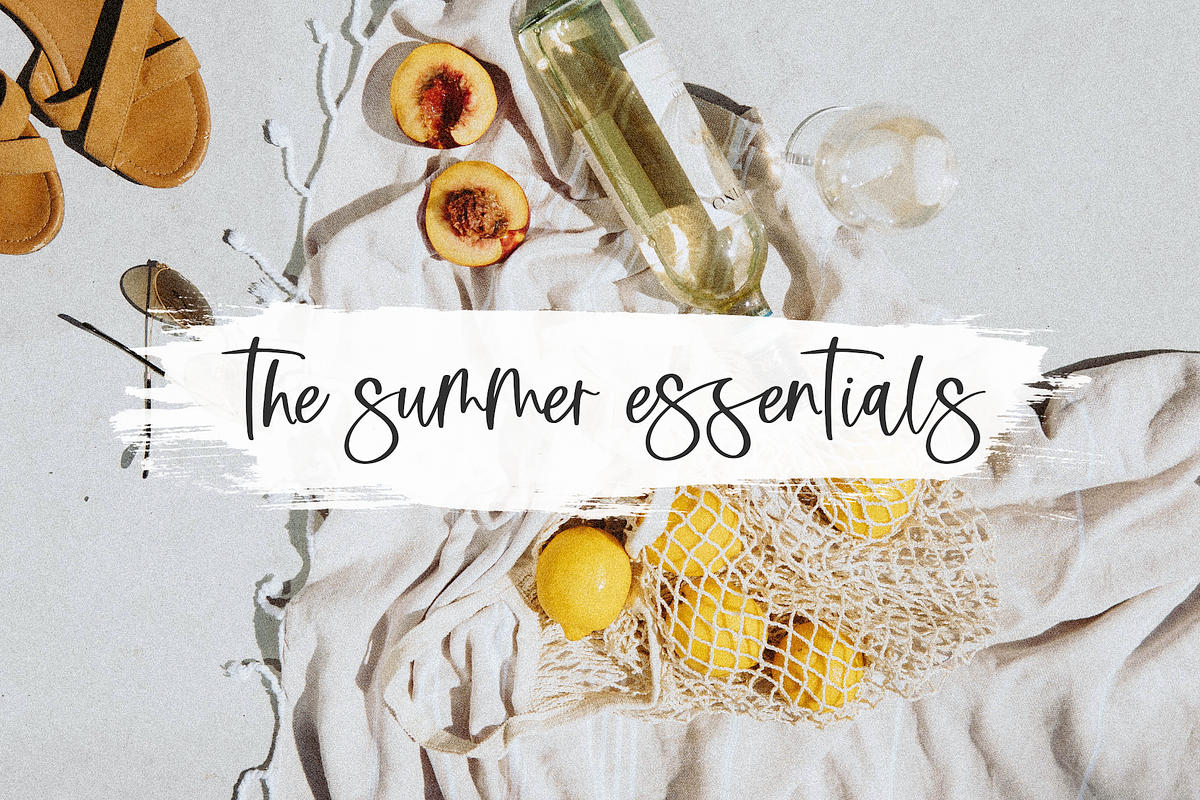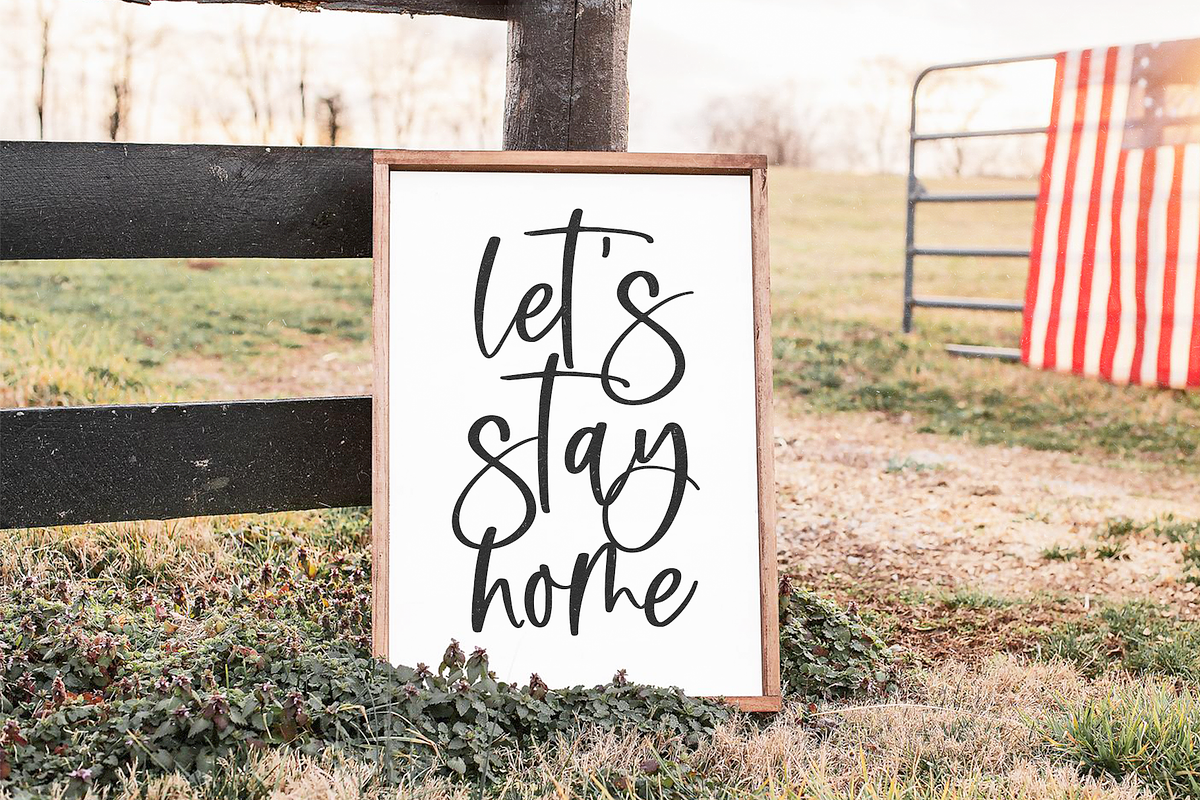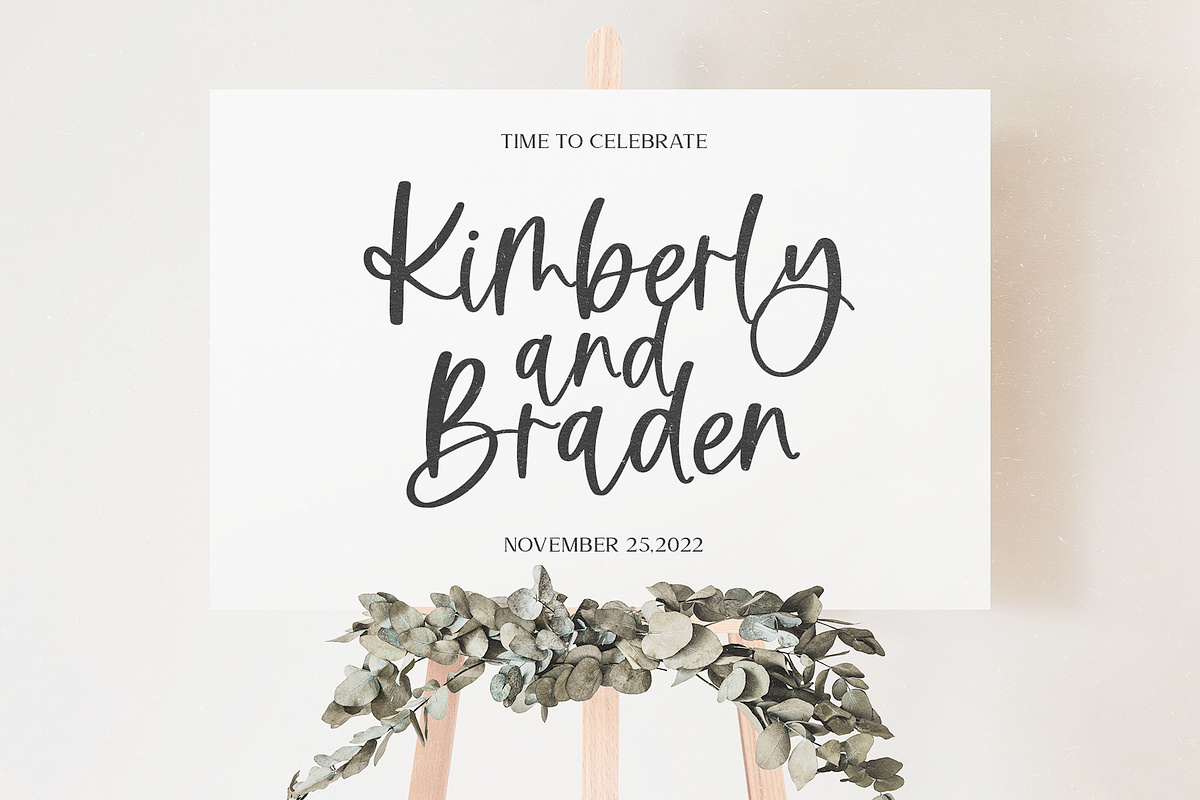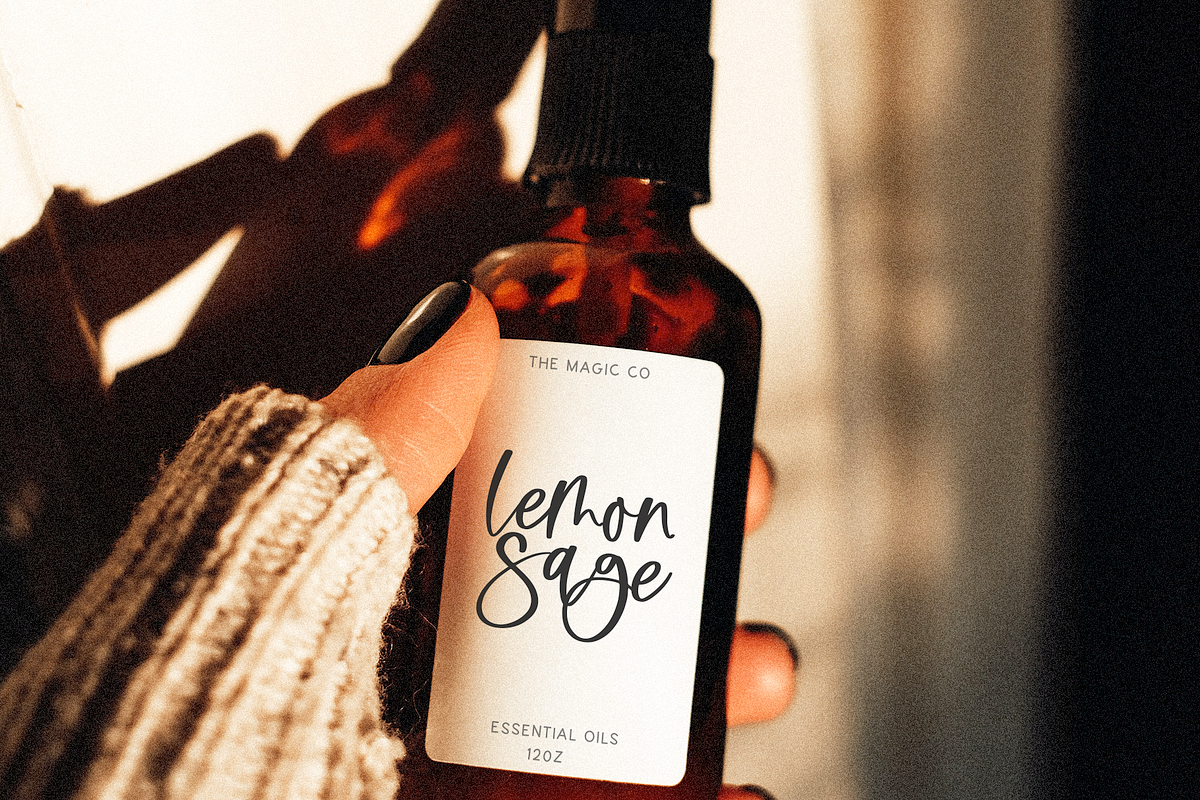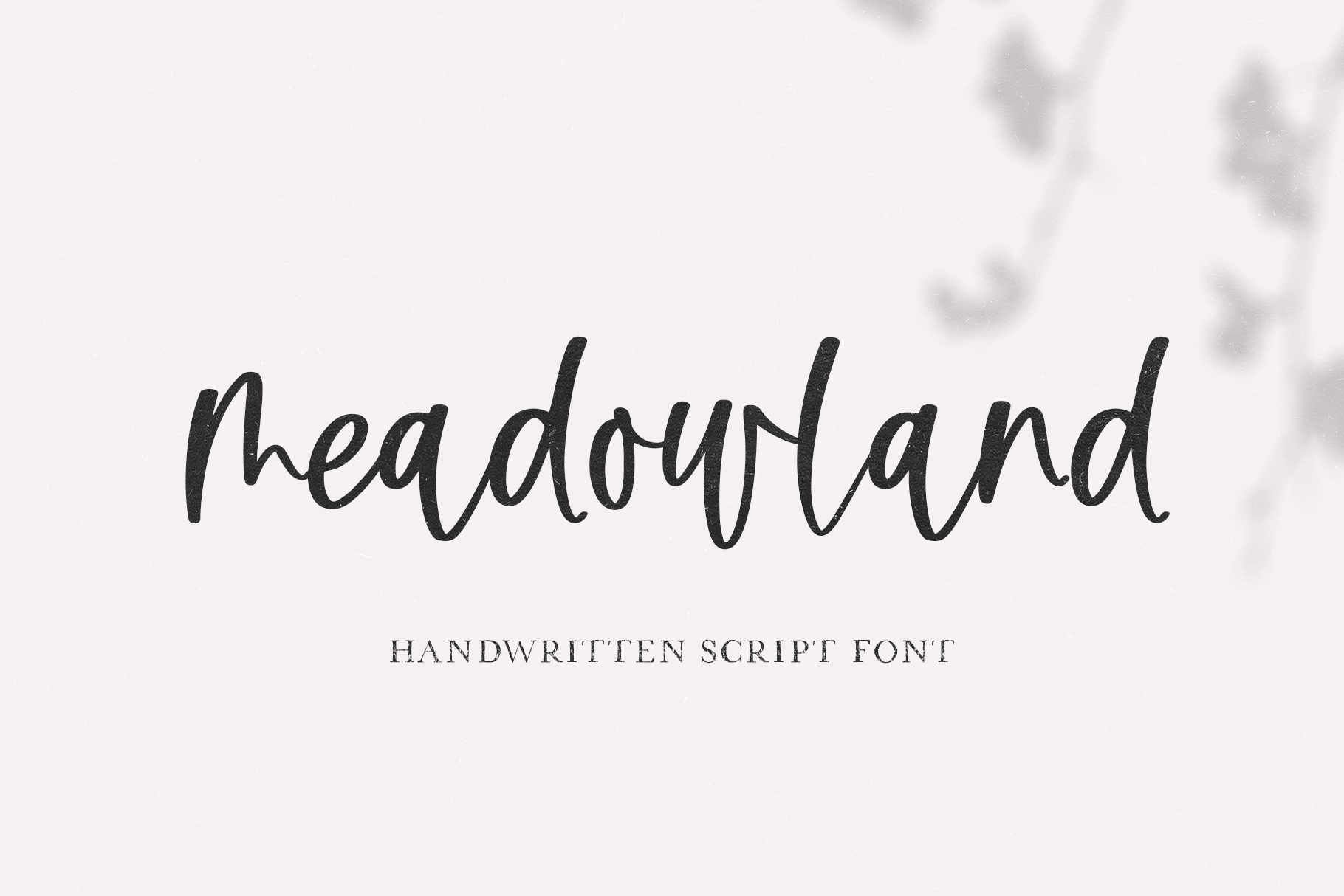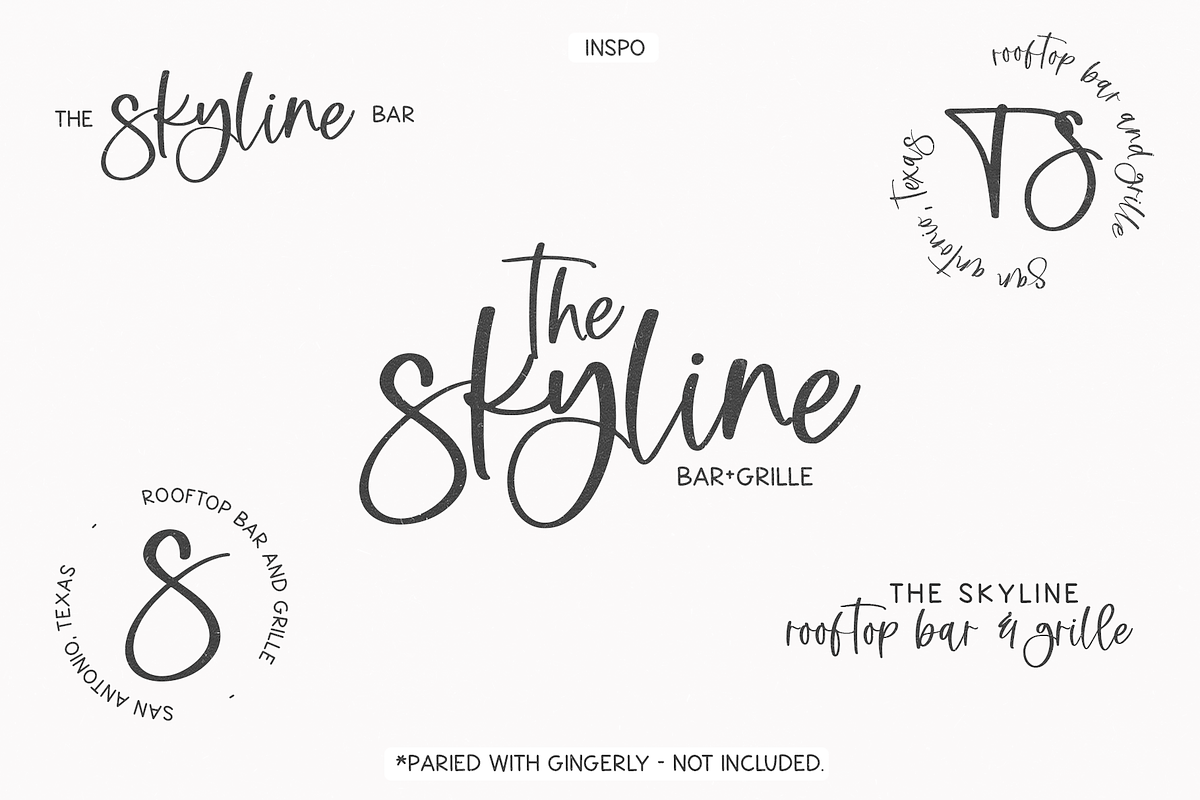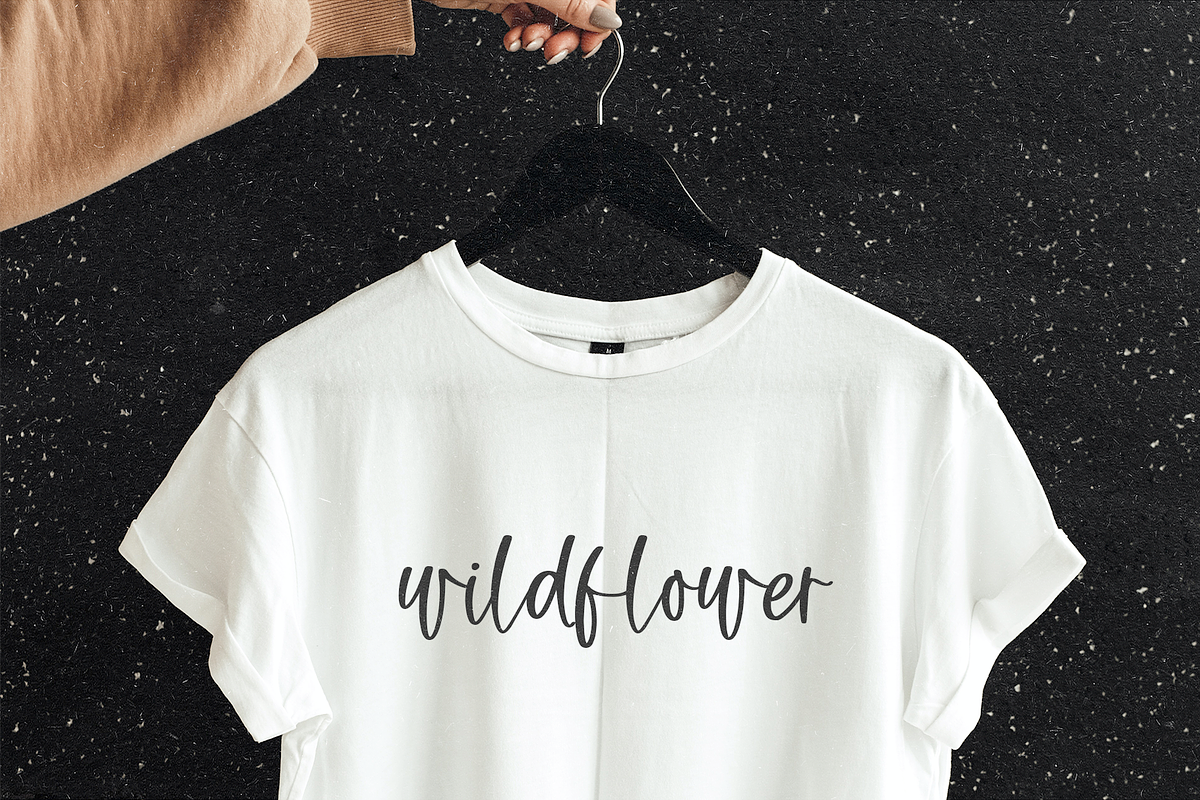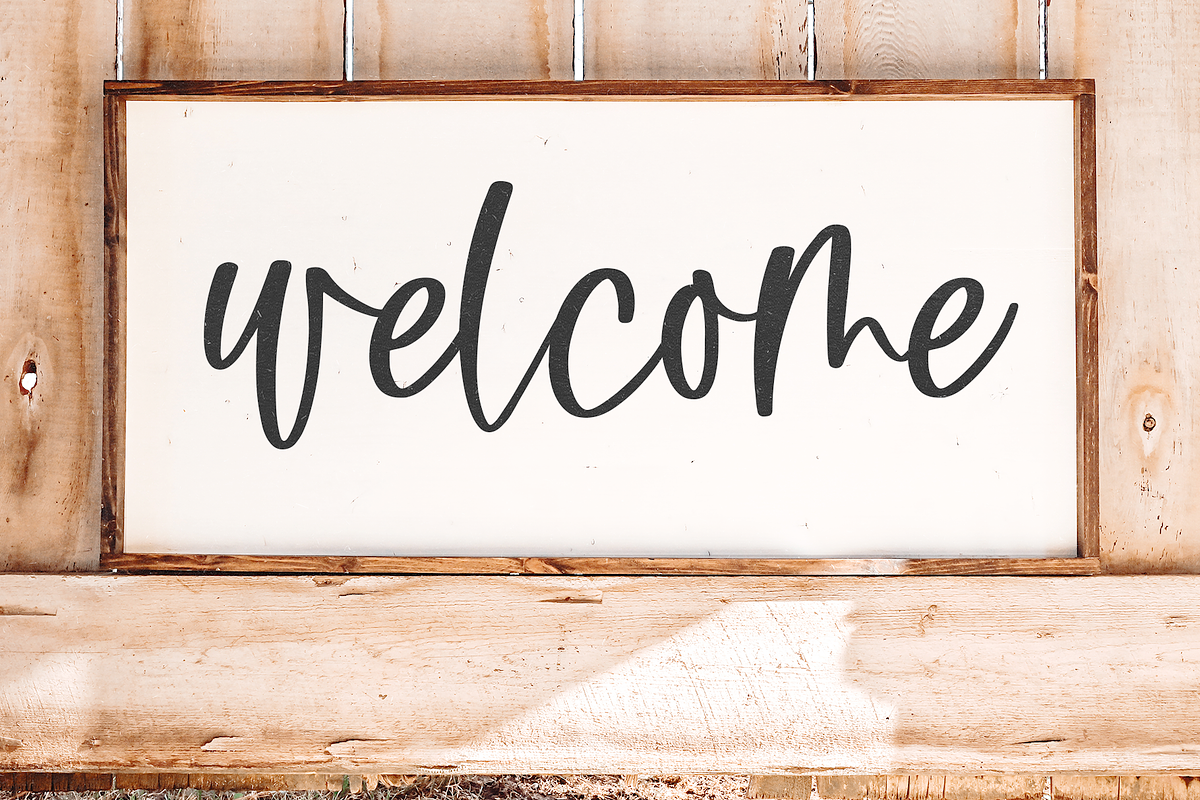
Meadowland | Modern Script Font
Meadowland is a handwritten + modern script font.
This font is perfect for all of your farmhouse projects, crafts, branding, logos, procreate, wedding decor, invitations, shirts and more!